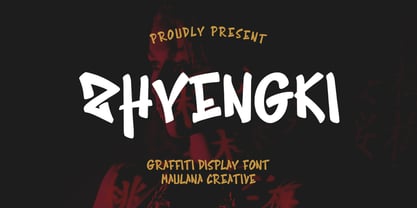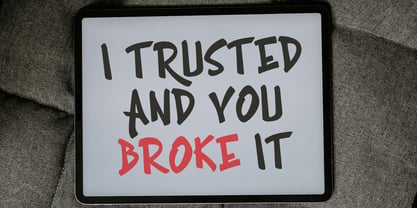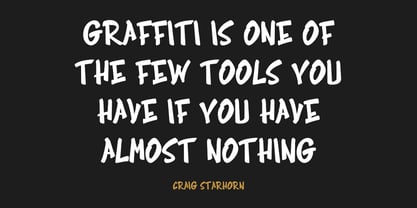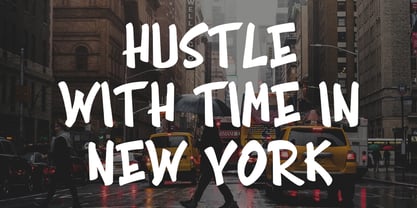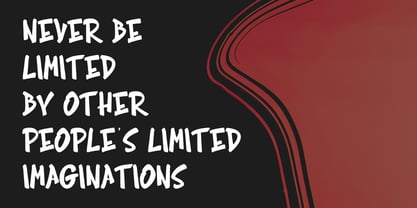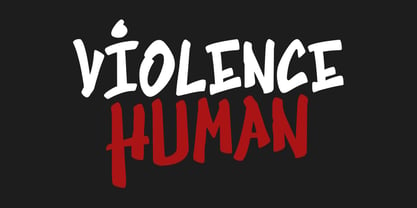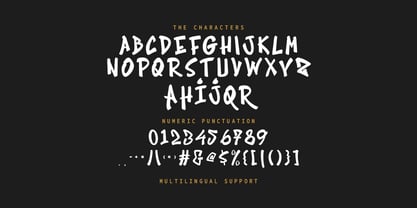
MC Zhyengki
by Maulana Creative
The MC Zhyengki Font Family was designed by Gilang Maulana and published by Maulana Creative. MC Zhyengki contains 1 styles. More about this family
Zhyengki is a graffiti handwritten display font. With bold stroke, fun character with a bit of alternates. To give you an extra creative work. Zhyengki font support multilingual more than 100+ language. Make a stunning work with Zhyengki graffiti display font.
Designers: Gilang Maulana
Foundry: Maulana Creative